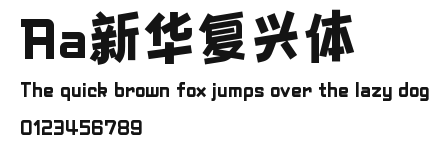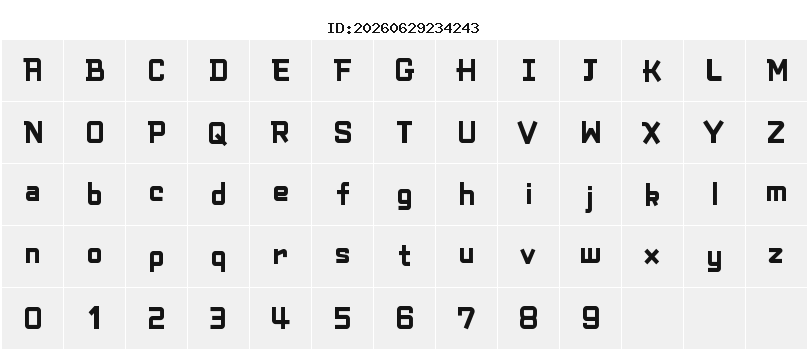
Aa新华复兴体 Preview
• Designer: Aa
• Manufacturer: 翰美互通(厦门)科技有限公司
• Description: AaXHFXT is a fantastic font with excellent features designed for user interfaces and electronic communications.
About Aa新华复兴体.ttf
Aa新华复兴体.ttf is a modern, elegant sans-serif font designed for ultimate readability and visual harmony. Perfect for branding, headlines, web design, and print materials.